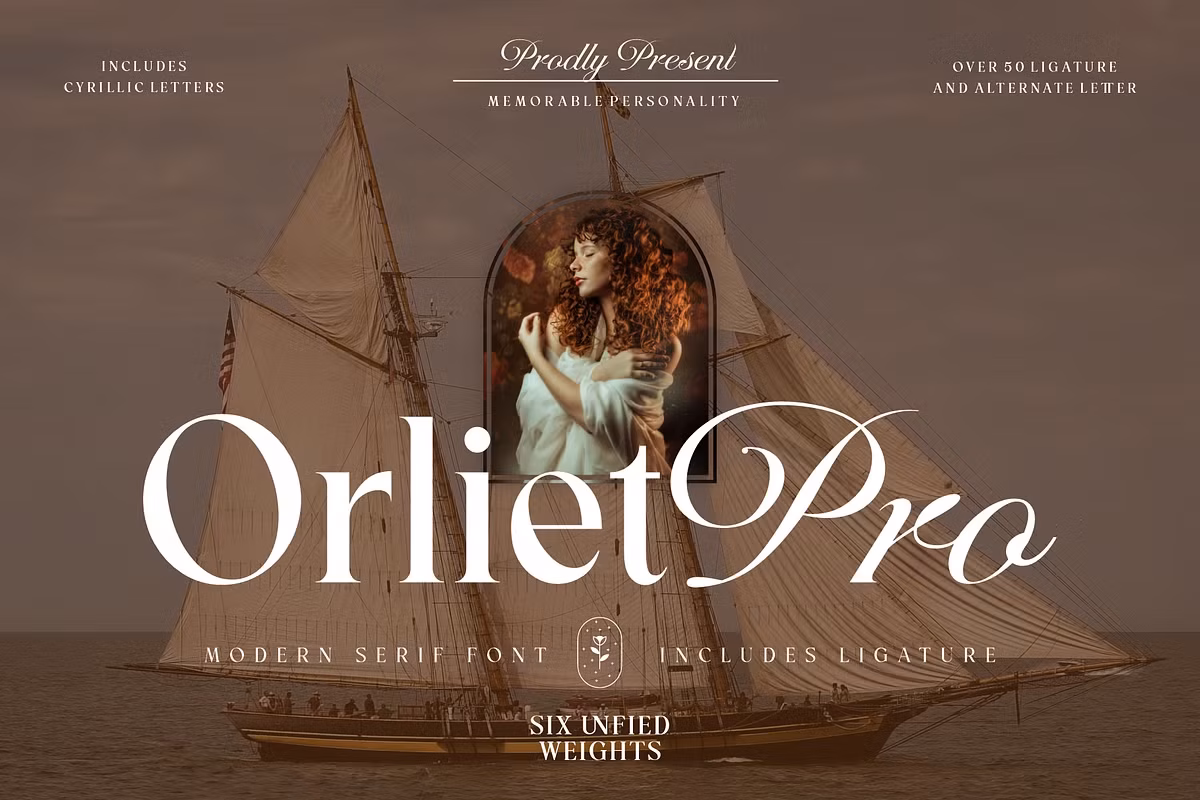
Orliet Pro - Serif, Icons + Script Free Download
Please note, to use these fonts for commercial purposes, you must purchase the full version. Orliet Pro is a versatile font package that includes a stylish serif font, matching icons, and a graceful script font. Perfect for a variety of design projects, this collection is ideal for logos, branding, invitations, packaging, and more. The serif and script fonts combine modern elegance with classic sophistication, while the icons add a creative and fun touch. Whether you're designing for a luxury brand, a creative campaign, or a personal project, Orliet Pro offers everything you need to create dynamic and impactful designs. Test it out and enjoy free download access for personal use. Experience the full creative potential of Orliet Pro - Serif, Icons + Script Free Download before purchasing the commercial license. Add a refined, stylish flair to your designs with Orliet Pro.